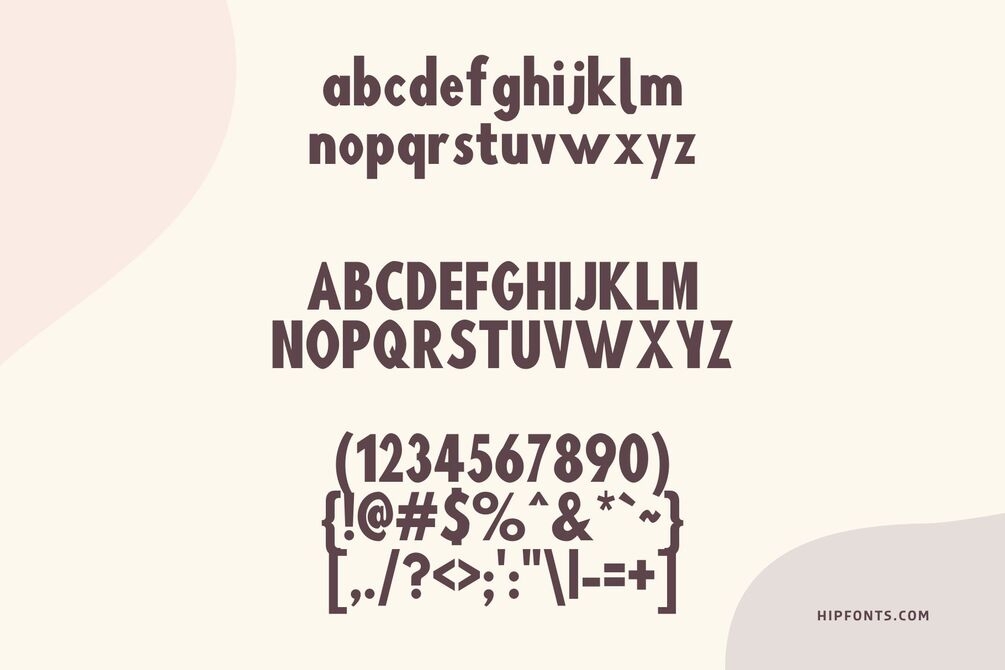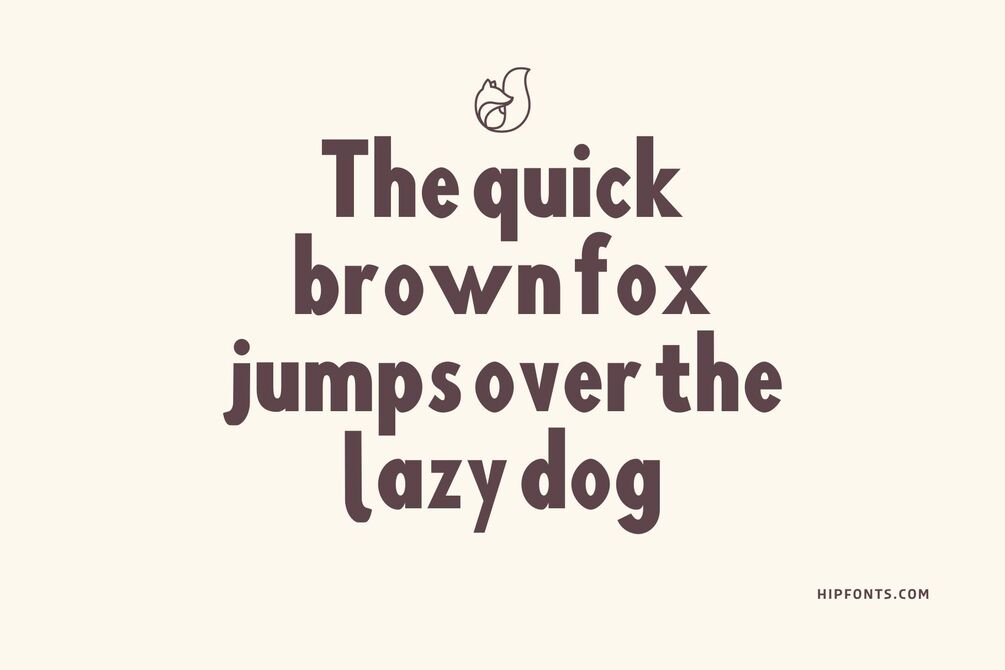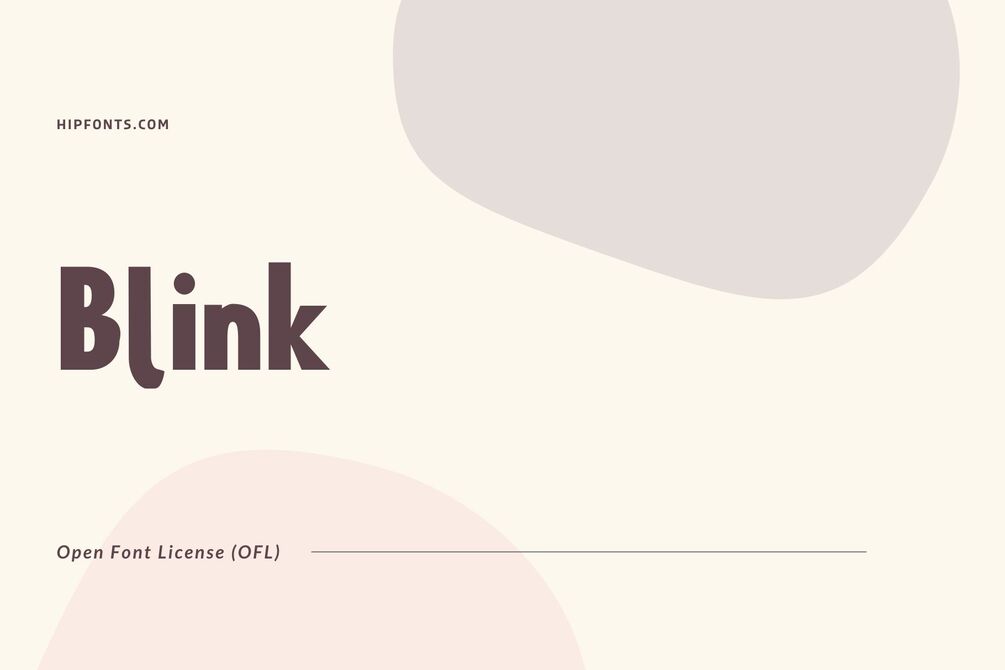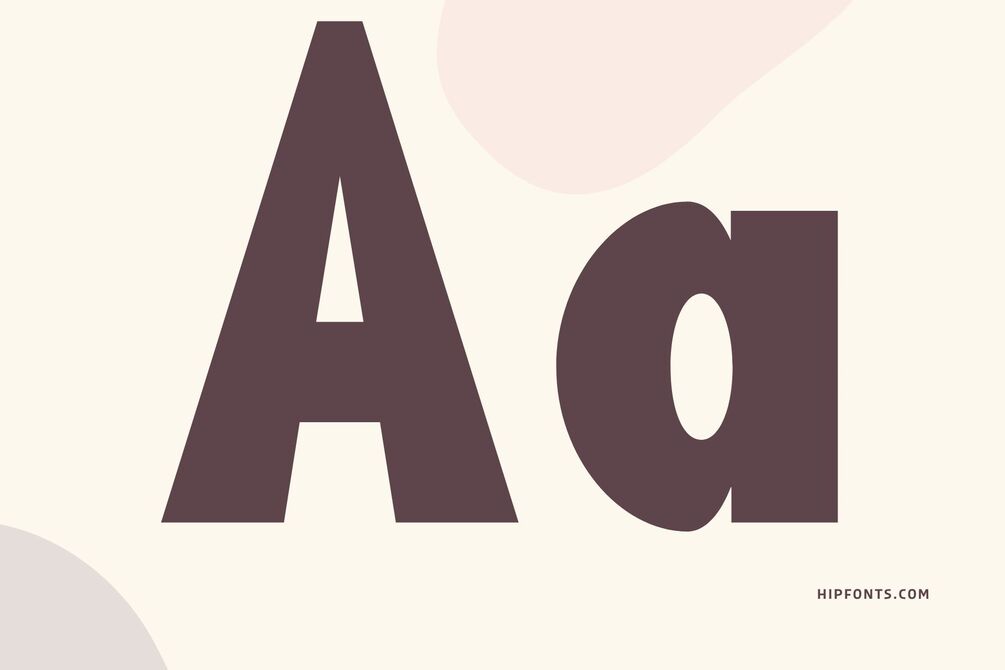
Blink
Introducing "Blink," a bold and dynamic font that commands attention with its striking presence. Designed by Mew Too to make an impact, Blink combines sharp edges, geometric shapes, and a touch of futuristic flair to create a visually captivating typographic experience. This font is a perfect choice for projects that aim to convey energy, modernity, and a sense of forward-thinking.
Blink's distinctive letterforms feature clean lines and bold strokes, allowing it to stand out in headlines, logos, and eye-catching design elements. Its geometric influences give it a sense of structure and precision, making it suitable for contemporary branding, digital interfaces, posters, and other impactful visual designs. With Blink, you can effortlessly infuse your projects with a sense of vibrancy and cutting-edge aesthetics.
The creator of Blink carefully crafted each glyph to ensure legibility without compromising on its bold and commanding nature. Whether used in large or small sizes, Blink remains highly readable, making it versatile for a wide range of applications. This font is a powerful tool for designers seeking to make a statement, capturing attention with its modern, edgy, and visually captivating style.